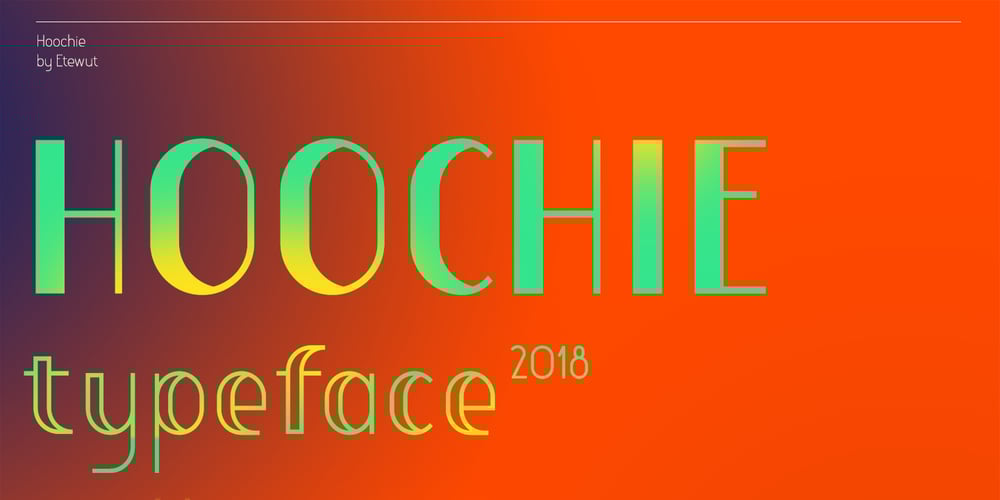
Hoochie Font Family was designed by Alex Etewut and published by Etewut. Hoochie contains 4 styles and family package options. Hoochie is a display font family based on sans serif. It has 4 styles: regular, display, mono and rough. All european languages with special characters are included.